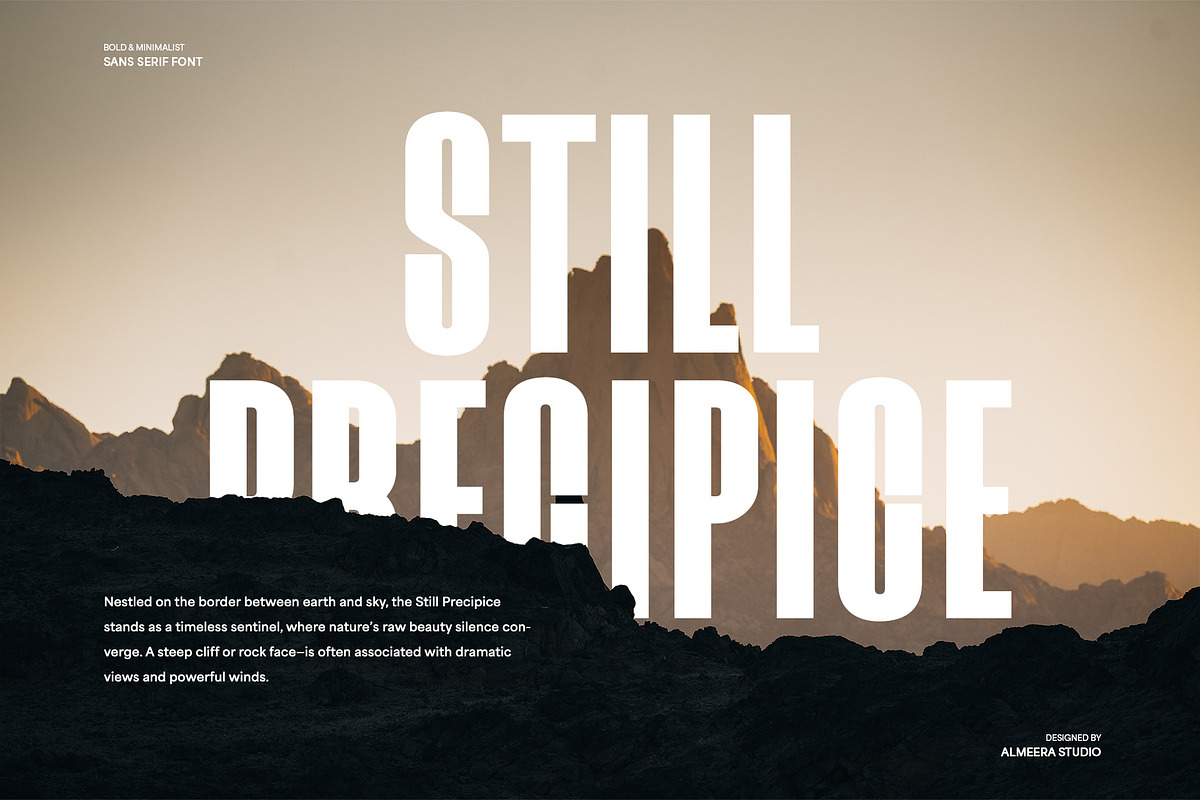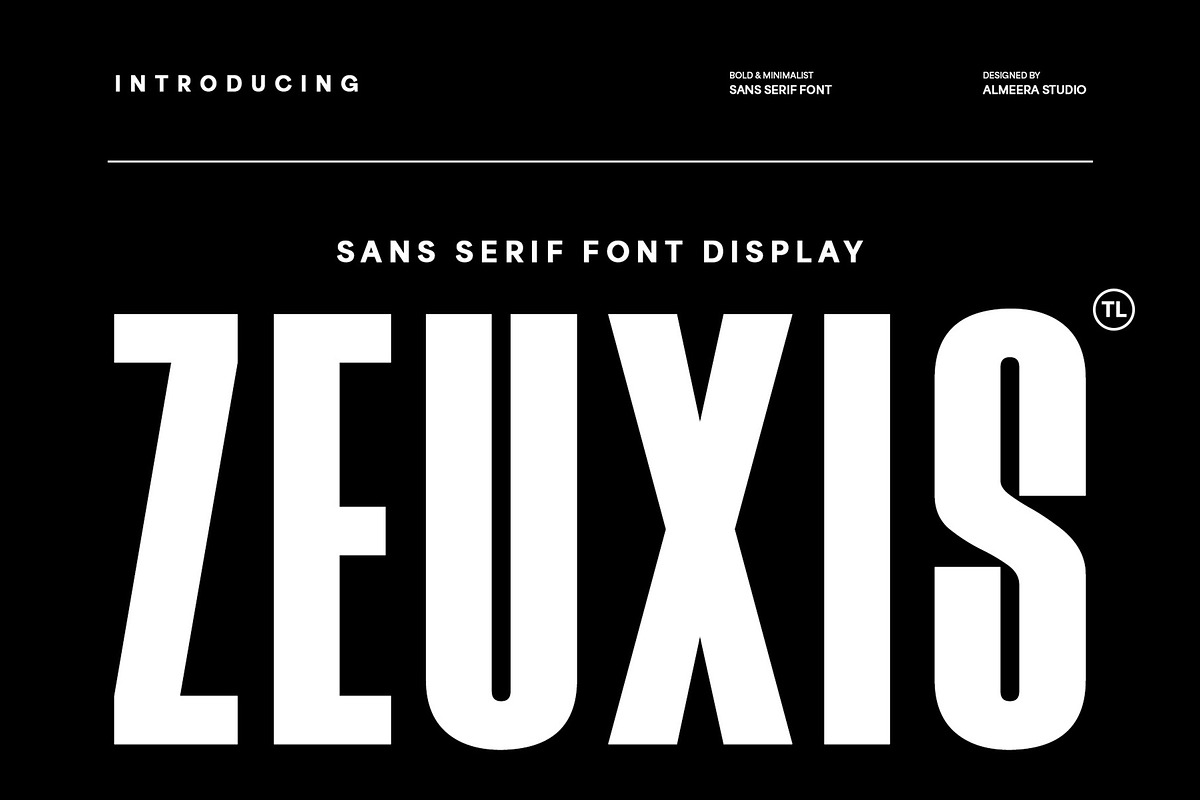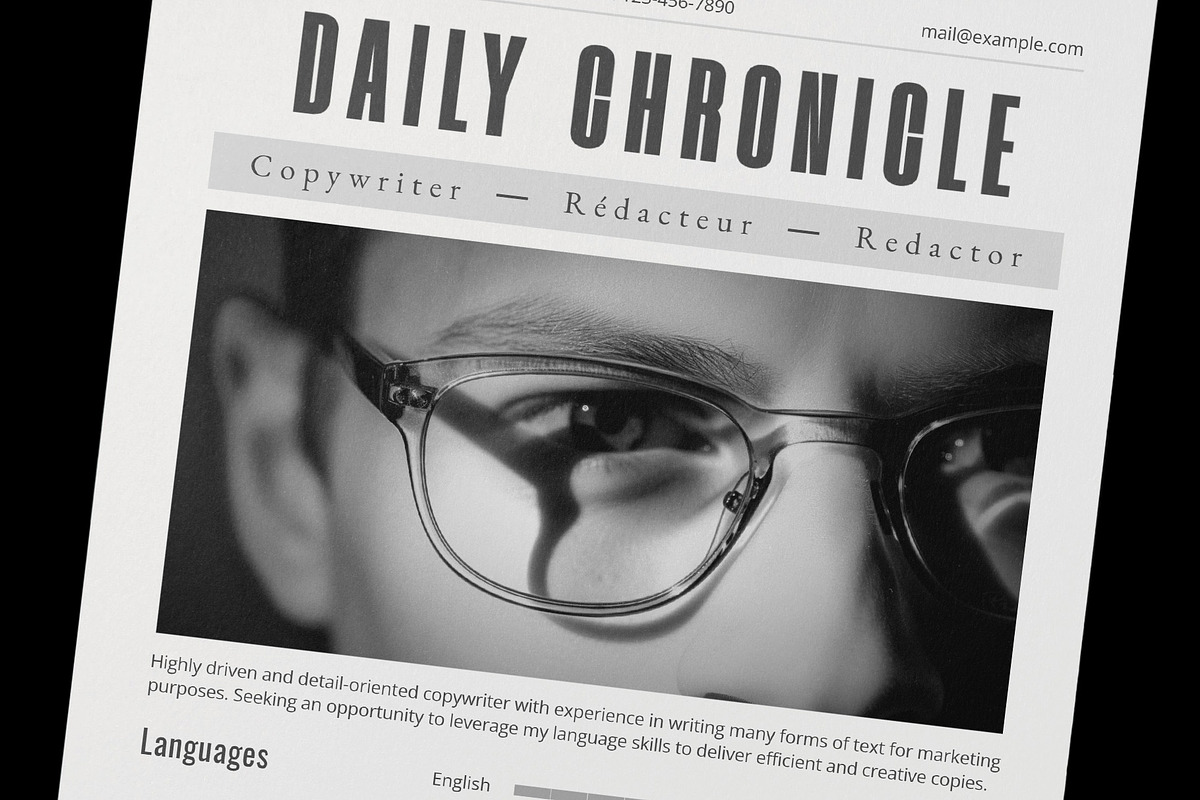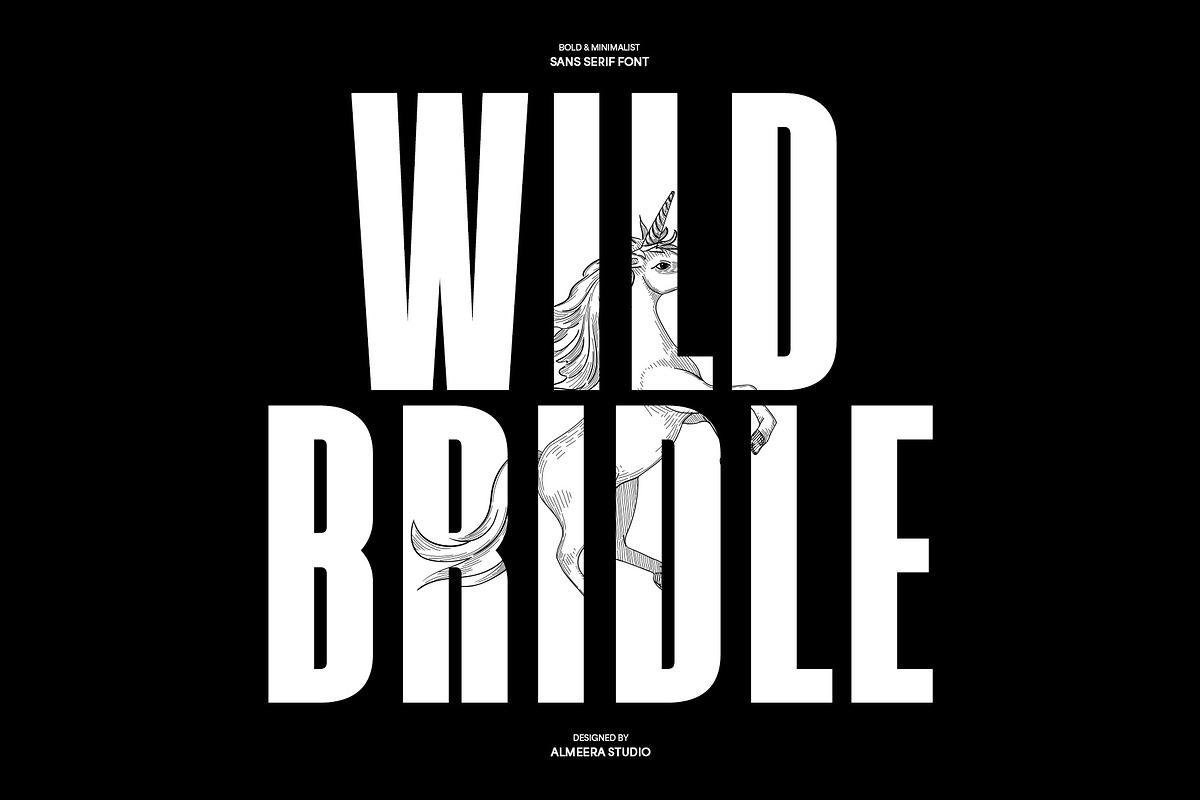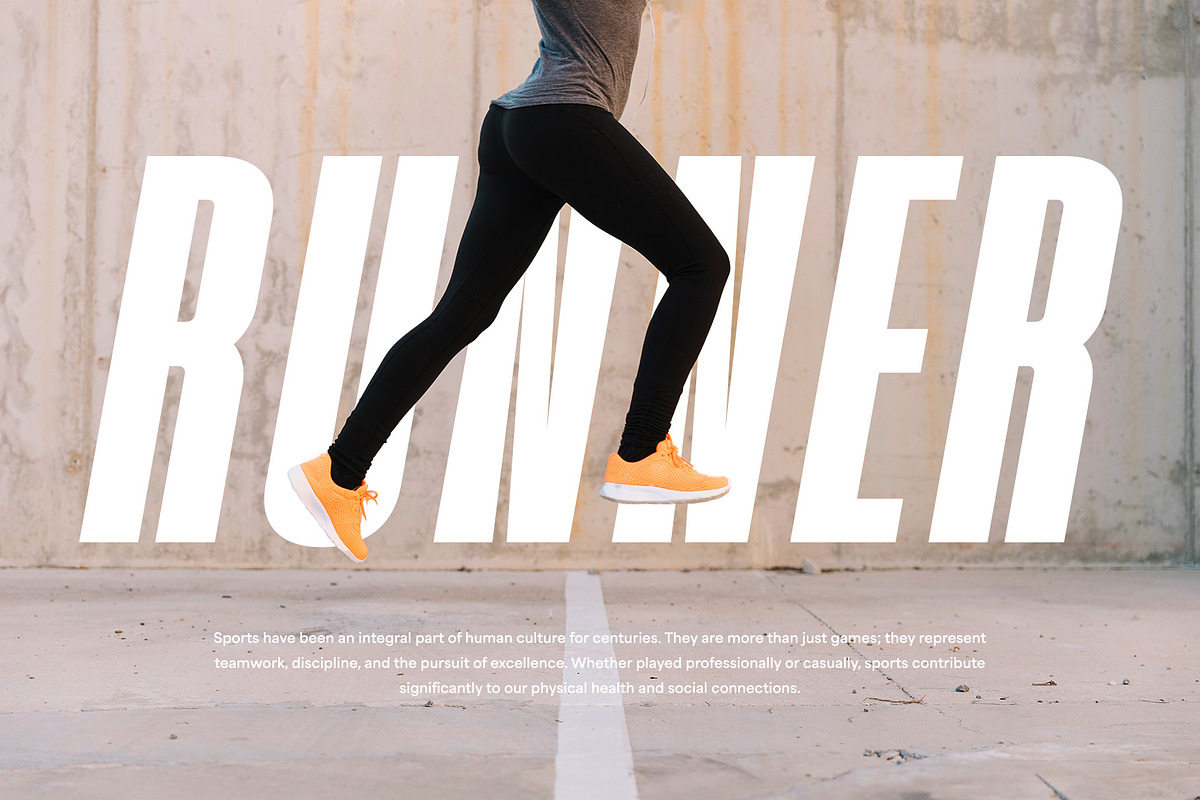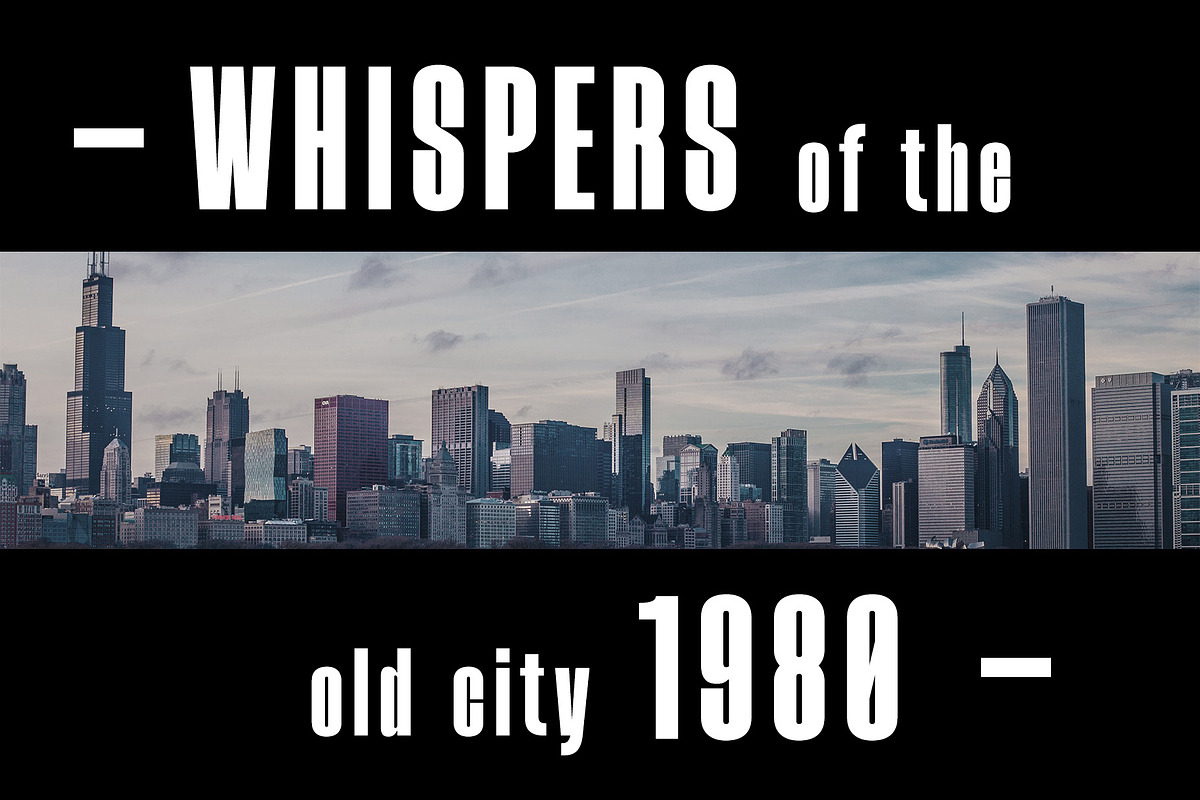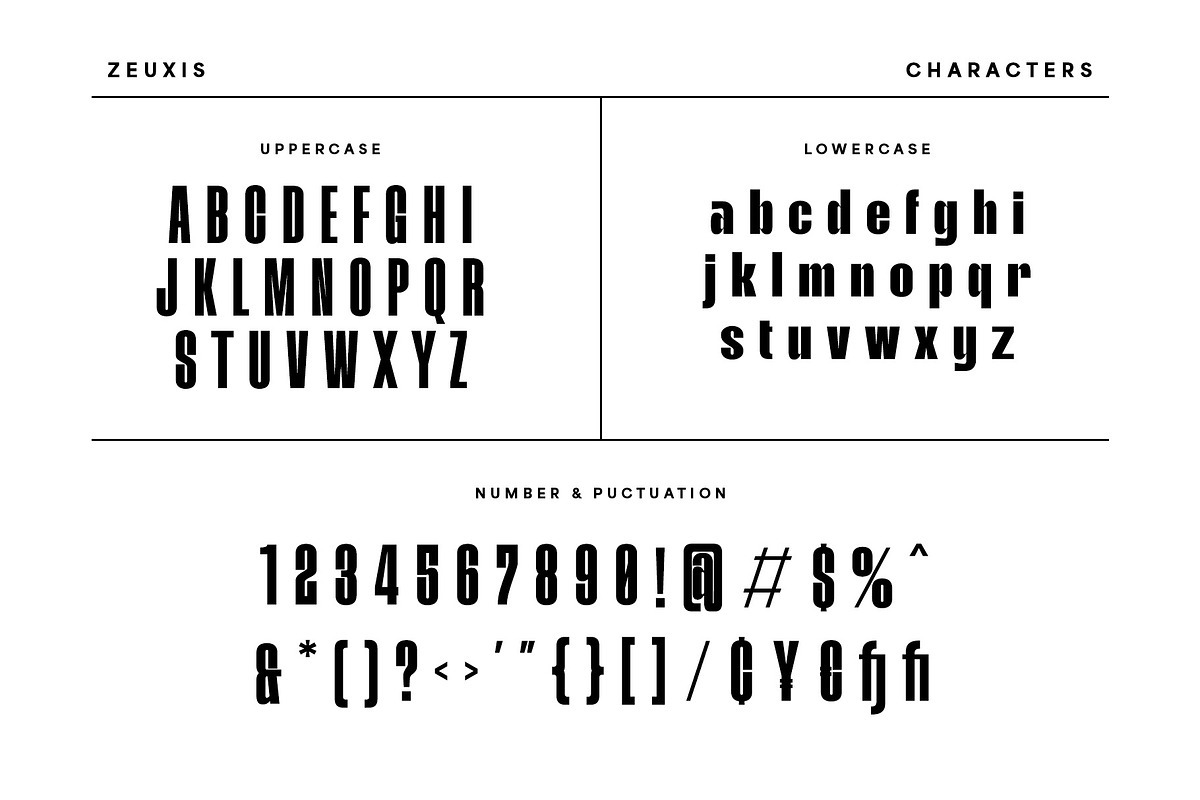
Zeuxis - Bold & Minimalist Sans
Unleash the power of Zeuxis, a commanding bold and minimalist sans serif font designed for maximum visual impact. This striking display typeface is your ultimate tool for modern branding, powerful headlines, dynamic logos, and any project that demands a strong, no-nonsense presence. Zeuxis boasts clean, impactful lines and robust letterforms that ensure exceptional readability and a distinctly contemporary feel. Whether you're crafting an innovative website, a captivating advertisement, or a sleek corporate identity, Zeuxis delivers an undeniable sense of strength and sophistication. Elevate your typography with Zeuxis, the essential font for designers seeking to make a memorable statement with clarity and style.